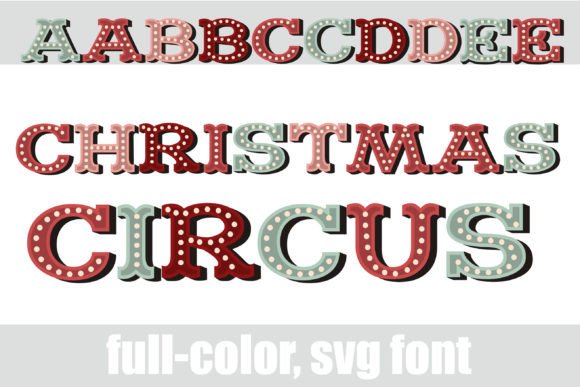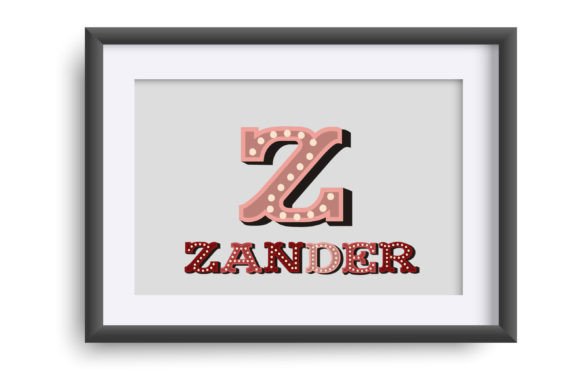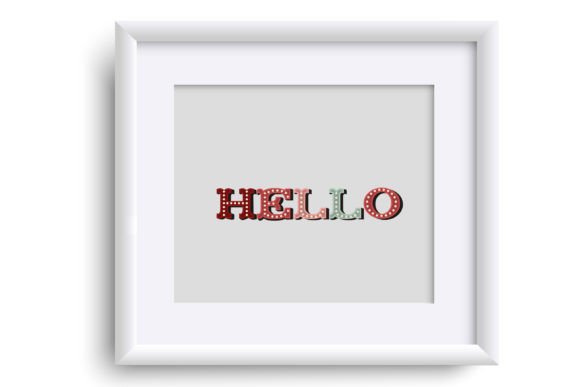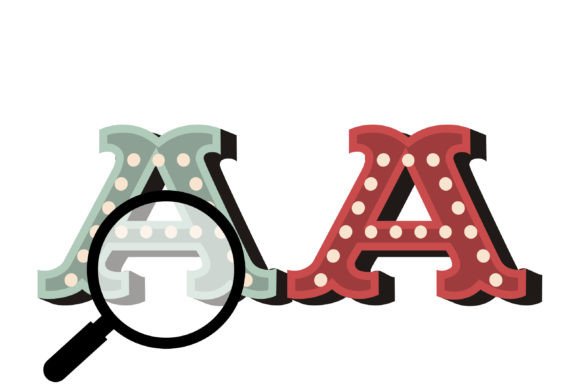
Christmas Circus Font
About the Christmas Circus Font
Experience the unique personality of Christmas Circus Font, a font designed for impact. This full-color font features a circus style font in a Christmas color palette. There is an alt case w/ additional colors you can access through your system or Silhouette’s glyph map.